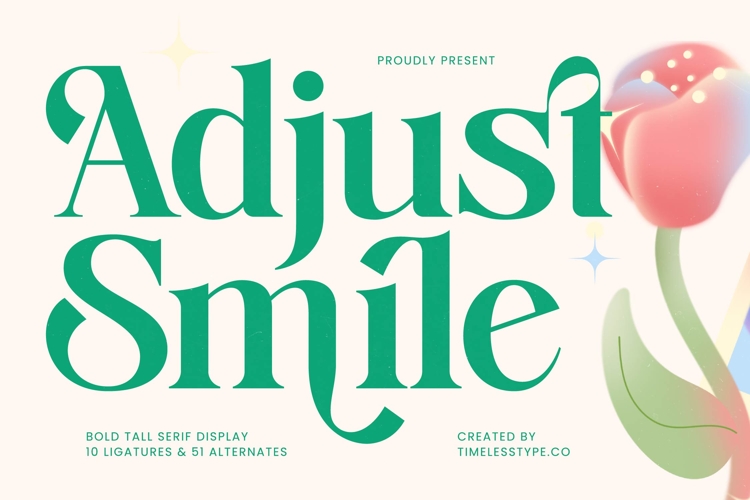
Adjust Smile - Bold Tall Serif Display Font
Discover the epitome of typographic sophistication with Font Adjust Smile - Bold Tall Serif Display Font Serif Display. This remarkable display font combines a bold presence with elegant, tall serifs, crafting an aesthetic that is both timeless and contemporary. Its high-contrast strokes and graceful curves capture immediate attention, making it an unforgettable choice for projects demanding a distinctive visual voice. Every character is designed to convey premium quality and artistic flair.
Unleash unparalleled design flexibility with Font Adjust Smile - Bold Tall Serif Display Font Serif Display's rich feature set. Boasting 10 unique ligatures and 51 expressive alternates, this font provides an extensive toolkit for creative customization. These thoughtful additions allow designers to craft truly bespoke headlines, logos, and mastheads, ensuring typographic harmony and visual interest. This empowers you to create unique typographic expressions that resonate.
Elevate your projects with the refined charm of Font Adjust Smile - Bold Tall Serif Display Font Serif Display, perfectly tailored for high-impact applications. This font is ideal for luxury branding, sophisticated packaging, high-end editorial design, fashion industry assets, magazine layouts, and memorable invitations. It effortlessly communicates exclusivity, elegance, and a premium feel, making it the ultimate choice for any brand seeking a lasting, refined impression.
Embrace global appeal and expand your creative horizons with Font Adjust Smile - Bold Tall Serif Display Font Serif Display. With its extensive multilingual support, Font Adjust Smile - Bold Tall Serif Display Font Serif Display adapts seamlessly across global markets, making it incredibly versatile for international projects. This comprehensive language compatibility ensures your message maintains its impact and clarity worldwide, solidifying its position as a powerful asset for global brands and diverse audiences.